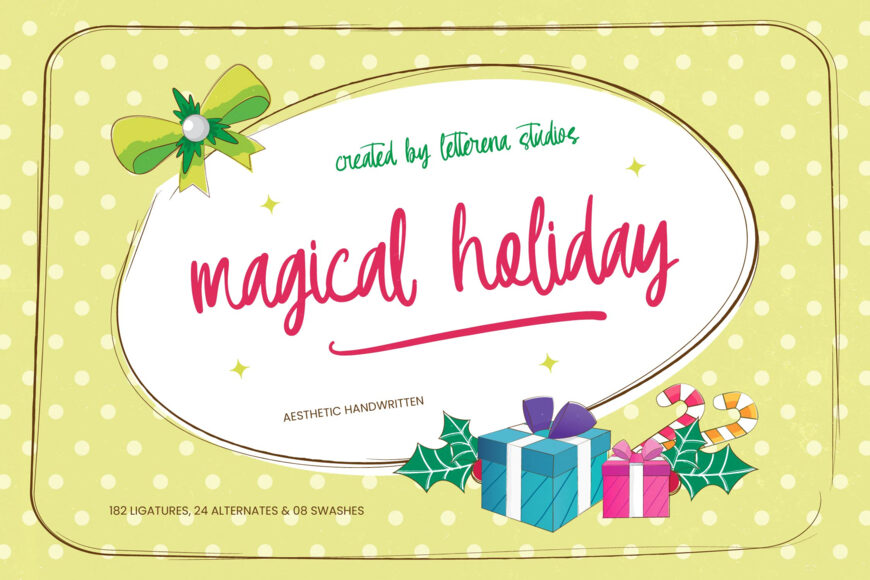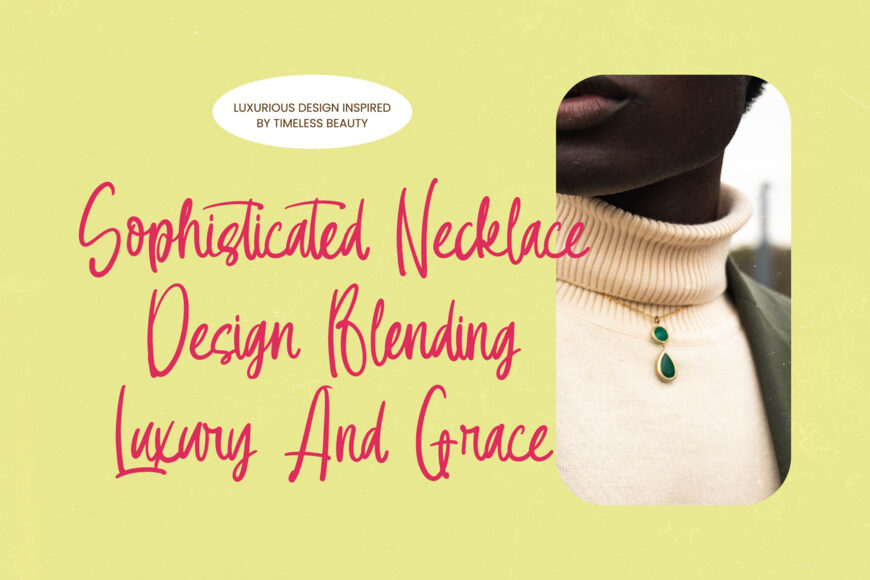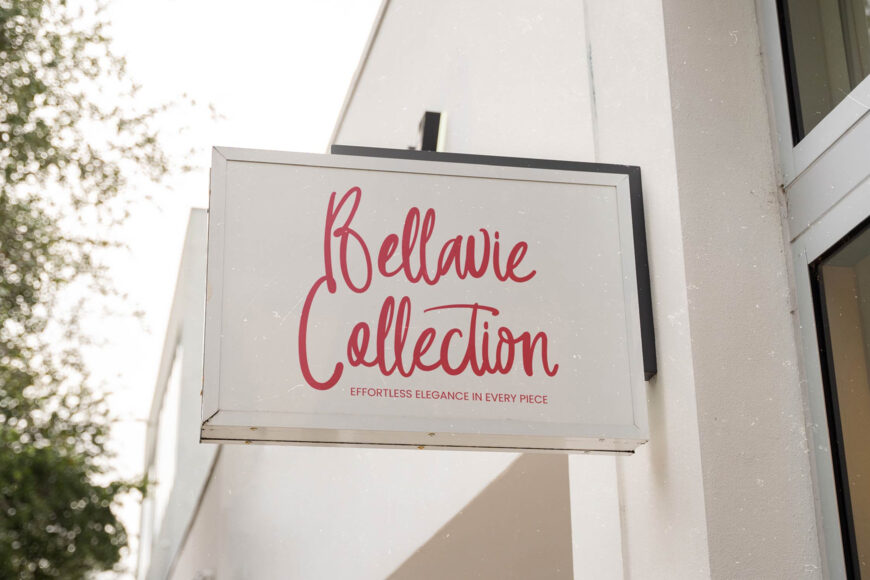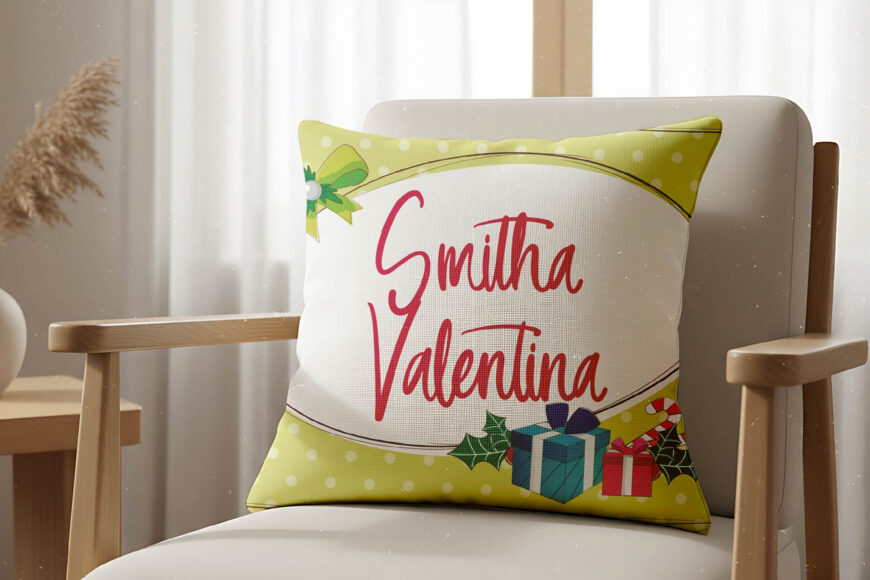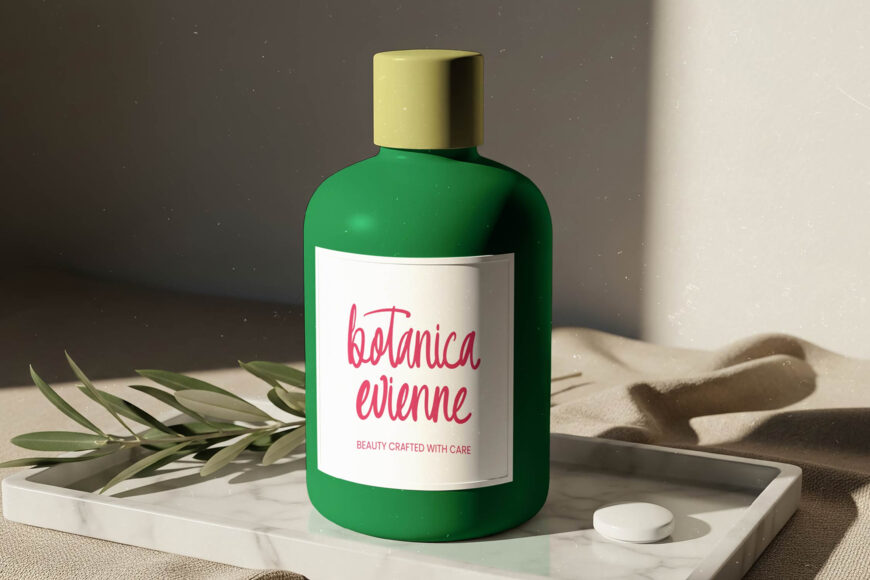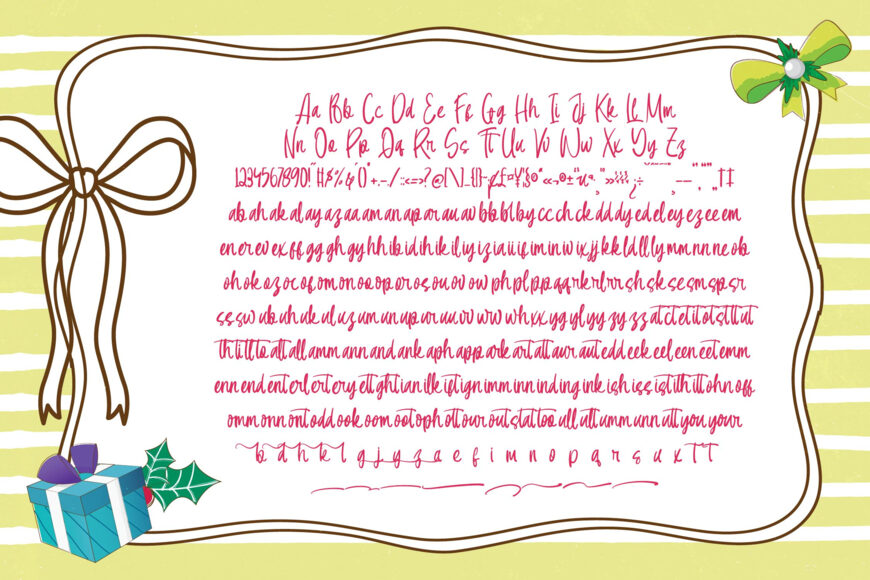
Magical Holiday Font
Elevate your design with a handwritten font that blends playfulness and elegance. Magical Holiday offers a fluid script that feels personalized and intentional. Its natural flow and extensive multilingual support make it versatile for global projects, ensuring a consistent brand message.
With 182 ligatures, 24 alternates, and decorative swashes, this font provides unparalleled customization for high-end results and sophisticated, hand-drawn looks.